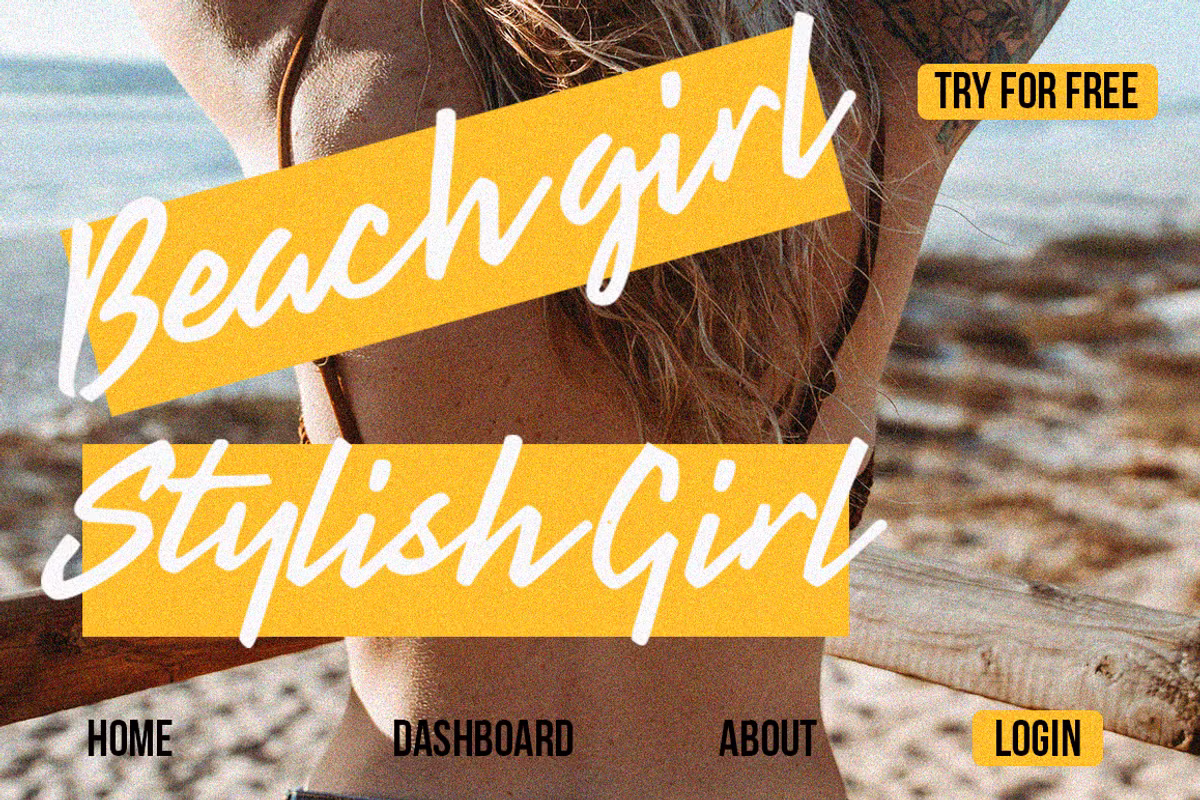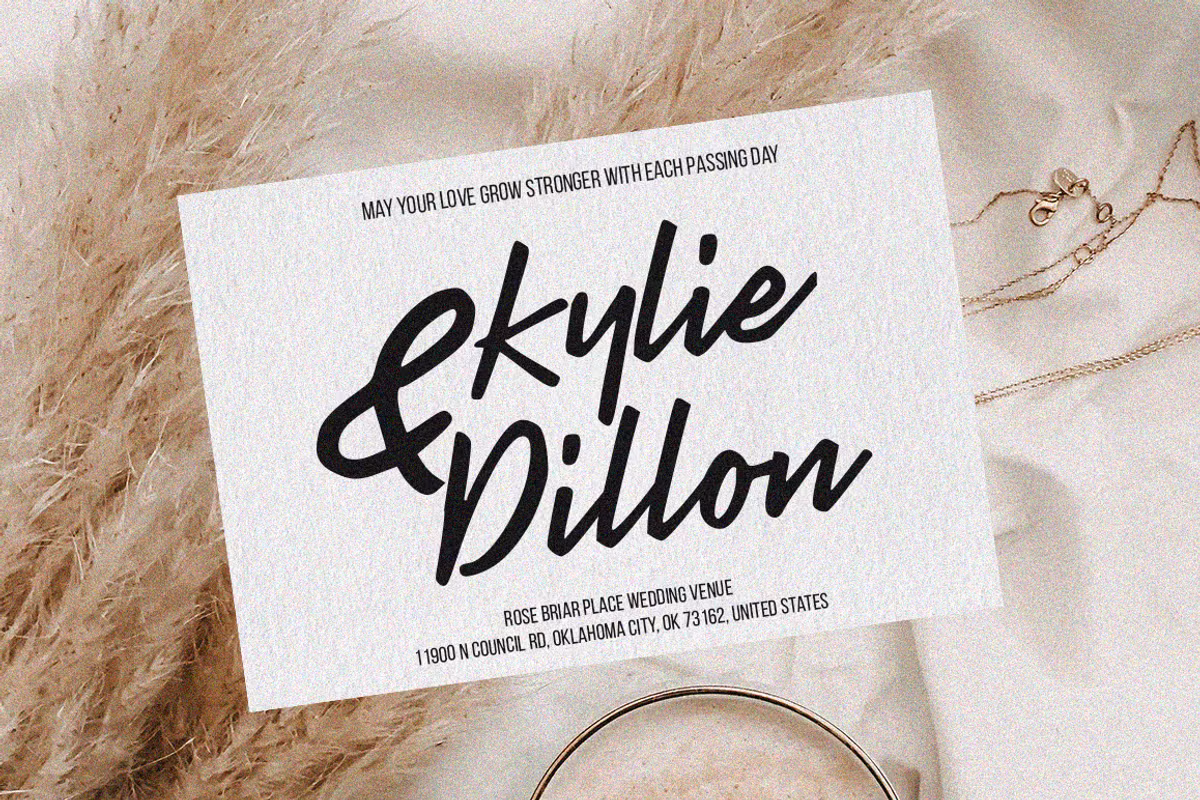
Santorini Monte Carlo | Handwritten: Elegant Semi-Brush Typeface Design
Santorini Monte Carlo is a really nice font that’s handwritten, but still looks modern and sleek. It’s like a mix of natural brush strokes and fancy design. This font is special because it can make your text feel warm and personal, like it was written just for someone. If you’re making wedding invitations or a logo, this font can add a touch of elegance and style to your work. It’s expressive, but not too crazy, so it’s perfect for when you want to add some flair to what you’re writing.
The style of Santorini Monte Carlo | Handwritten is really nice because it mixes casual and fancy parts together. The letters are smooth and flowy, like they were written with a brush, which gives it a homemade feel. The little texture and different line thicknesses make it look real, like someone took the time to write it by hand. This font has a romantic feel to it, like the island of Santorini, and it’s also fancy like Monte Carlo, which makes it look great.
Santorini Monte Carlo | Handwritten is a great font because it’s easy to read and also looks really nice. It has a special balance between being fun and clear, which makes it good for lots of different uses. You can use it for big titles or small writing, and it always looks good and catches your eye. The people who made it were very careful to make sure each letter is clear and also artistic, so it’s a great choice for anyone who wants their writing to look nice.
Character Sets
Santorini Monte Carlo | Handwritten features an extensive character set that includes uppercase and lowercase letters, numerals, and a variety of punctuation marks. This comprehensive collection allows for versatile usage in different contexts, ensuring that you have all the necessary characters to express yourself fully.
The letters in this font are made to flow nicely and be easy to read, so they look good together. A soft texture is added to each letter, giving it some extra personality and making it look like it was written by hand. This careful design makes Santorini Monte Carlo | Handwritten a great choice for many different kinds of design projects, because it’s both pretty and useful.
Use Cases
Santorini Monte Carlo | Handwritten is a really beautiful font, it’s perfect for lots of different things. Here are some examples of when it works really well:
- Wedding Invitations & Special Events: The romantic feel of this font makes it ideal for creating stunning wedding invitations, save-the-dates, and other event materials that require a personal touch.
- Branding and Logo Design: If you are looking to create a logo that stands out, Santorini Monte Carlo | Handwritten offers a distinctive character that can help establish a memorable brand identity.
This font is really nice for things like greeting cards and packaging. It makes them feel warm and friendly, which is great for getting people’s attention. When you use this font, it can make your cards and packages stand out and look more appealing to the people who see them.
Social Media Graphics: For those looking to elevate their online presence, using this typeface in social media posts can create eye-catching graphics that engage audiences.
Creative Headlines: Whether for posters or promotional materials, Santorini Monte Carlo | Handwritten makes for striking headlines that draw attention and convey style.